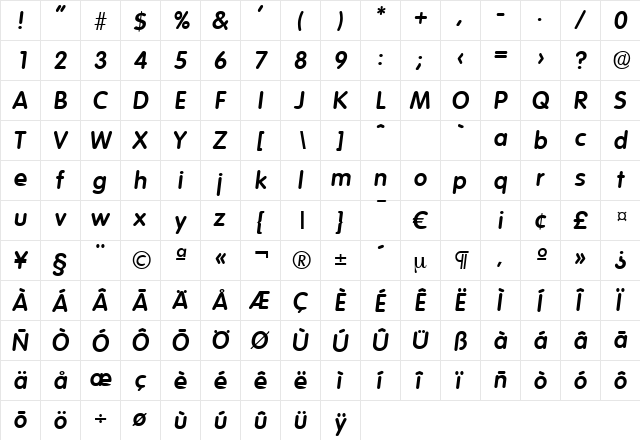
Volkswagen-DemiBoldIta Regular
Design Context for Volkswagen-DemiBoldIta Typeface
Volkswagen-DemiBoldIta offers clean, dependable letterforms without strong stylistic allegiance, making it a practical choice for designers who need flexibility. Its bold stroke weight gives it real presence on the page.